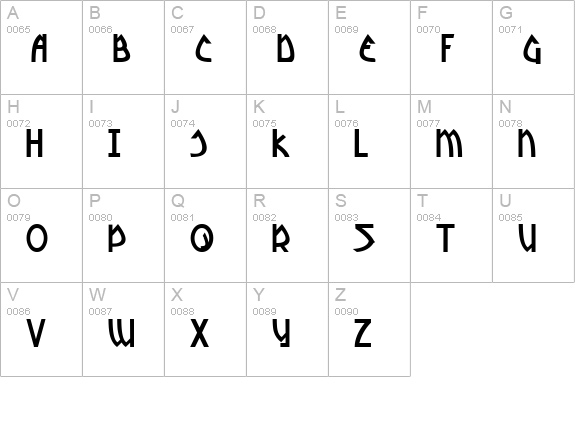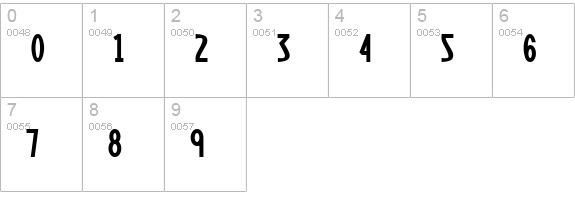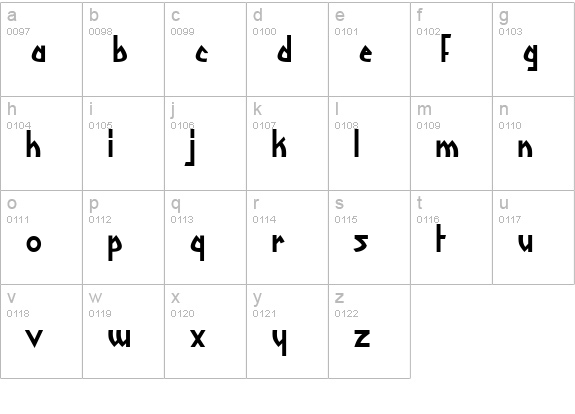
Yoshitoshi Bold Font Details
Yoshitoshi Bold is a strong, high-contrast variant in the Yoshitoshi typeface family \xE2\x80\x94 well suited to headlines, attention-grabbing titles, and strong calls-to-action.
Yoshitoshi Bold font is a modern and stylish typeface that commands attention with its bold and strong design. The striking and impactful letterforms make it perfect for headlines, titles, and branding projects. With its clean lines and sharp edges, Yoshitoshi Bold exudes confidence and power. This versatile font is freely available to download at FontsMarket.com, making it accessible to designers and creatives looking to make a bold statement in their projects. Whether you're designing a poster, logo, or website, Yoshitoshi Bold will elevate your work with its contemporary and eye-catching aesthetic. Embrace the boldness of Yoshitoshi Bold font and take your design projects to the next level. Download it now for free at FontsMarket.com and unleash your creativity with this powerful typeface.